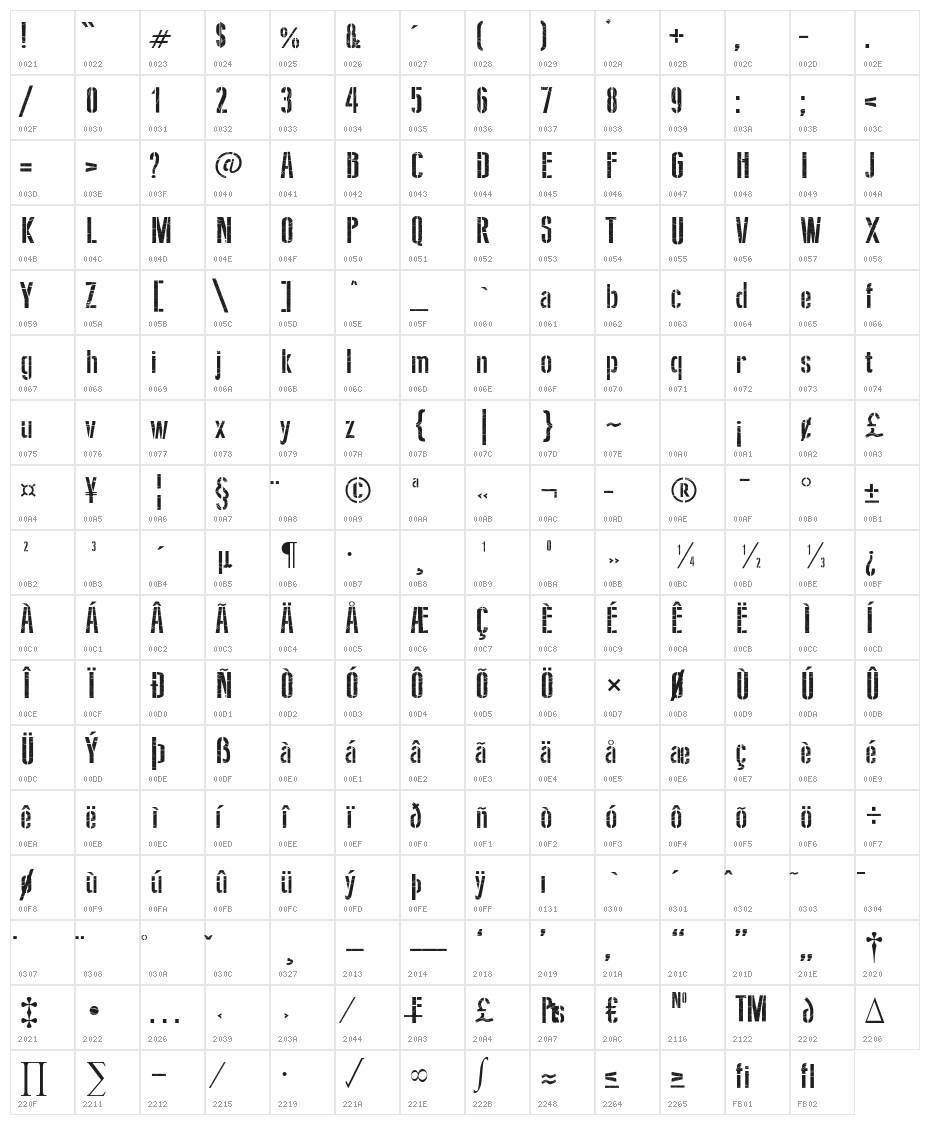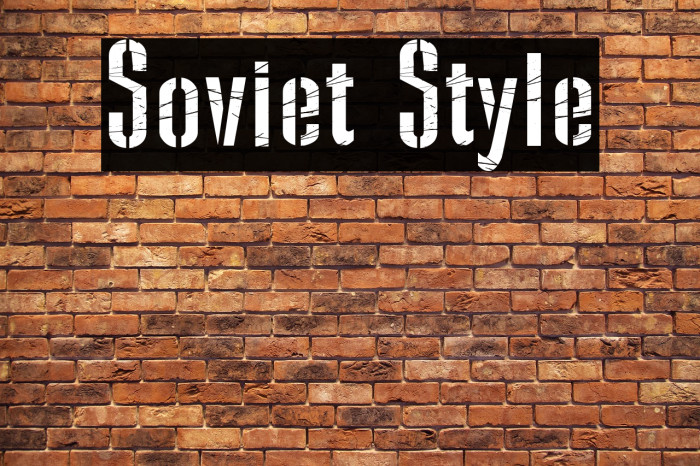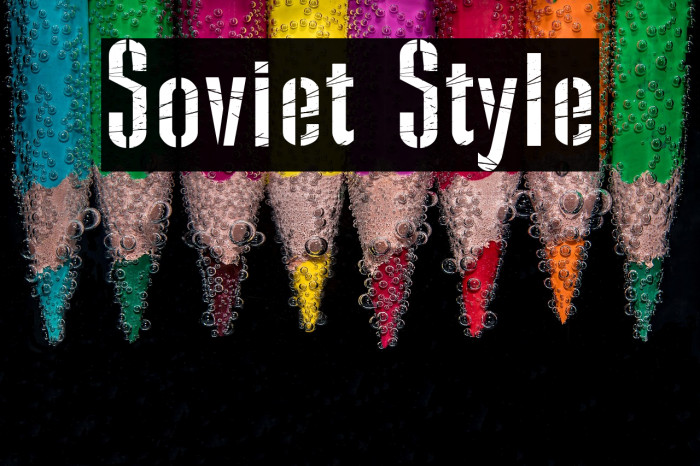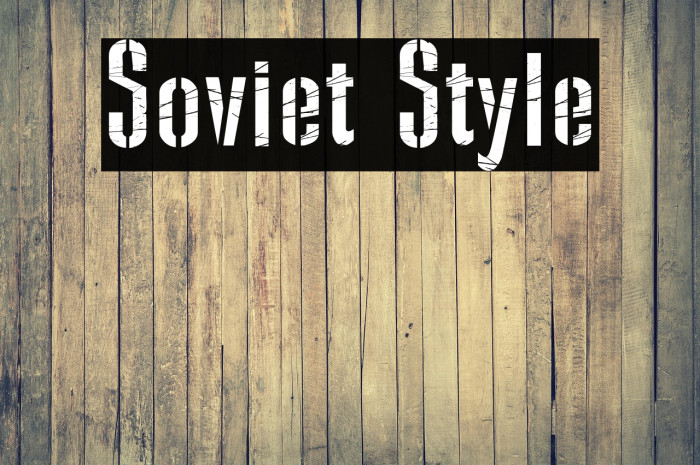
Soviet Style Font
Soviet Style Description
This font features a bold, distressed style reminiscent of Soviet-era design. The characters are blocky and robust, with a worn texture that gives them a vintage, industrial feel. The uppercase and lowercase letters maintain a consistent weight, while the numbers and special characters follow the same rugged aesthetic. The font's unique appearance makes it stand out, ideal for projects that require a strong, historical, or gritty look.
| Proposed Projects | Ideal for posters, branding, and designs that require a historical or industrial theme. |